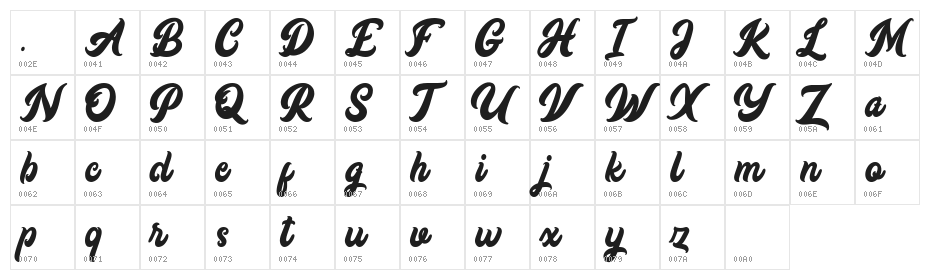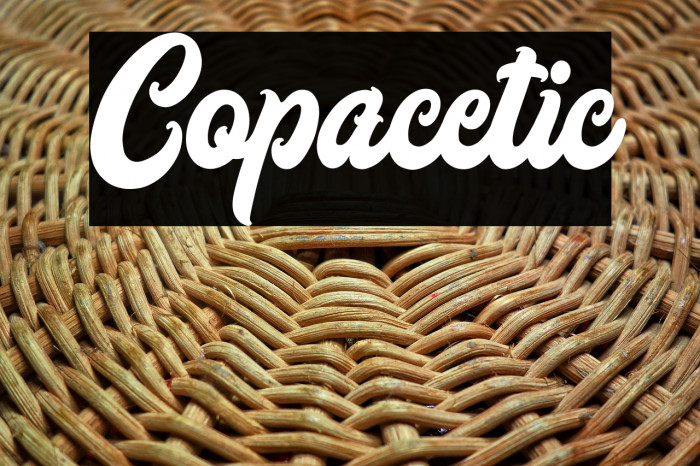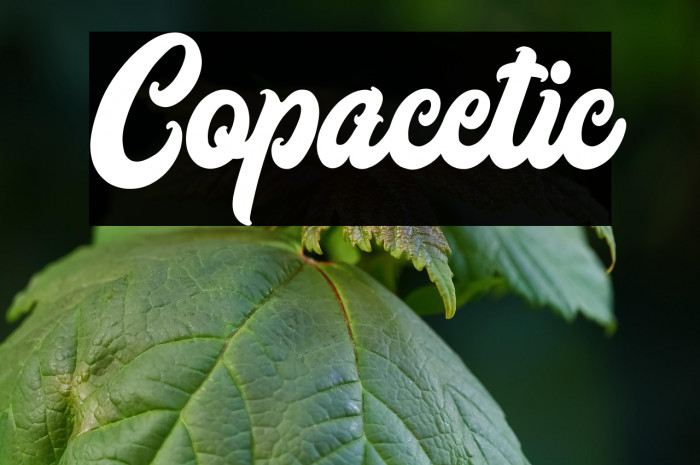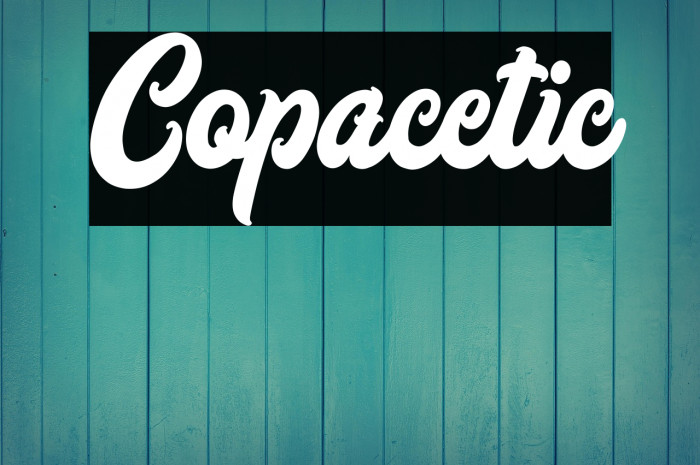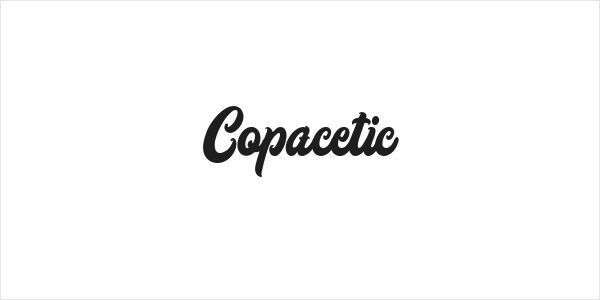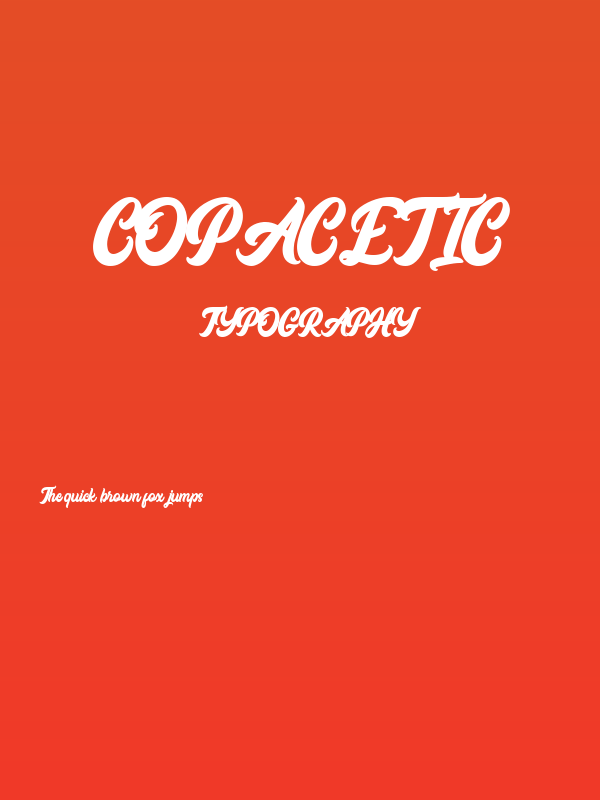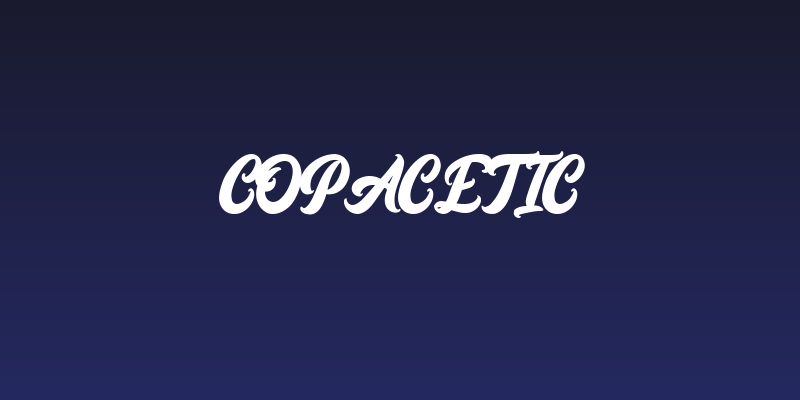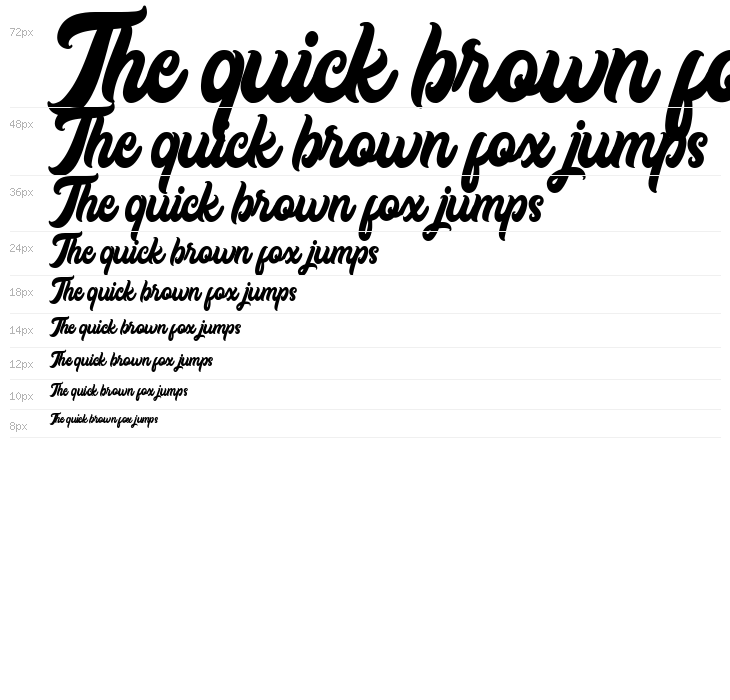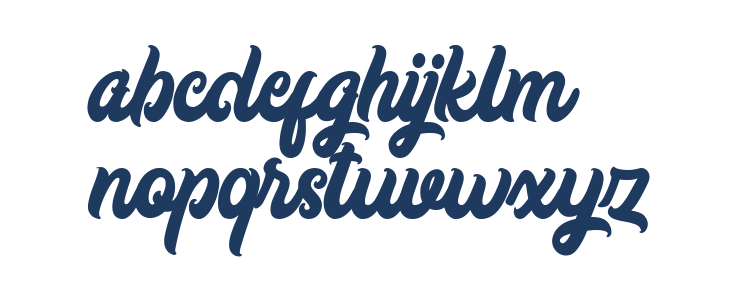
Copacetic Font
Copacetic Description
This font features a bold, cursive style with a strong emphasis on fluidity and elegance. The characters are interconnected, creating a seamless flow that is both dynamic and visually appealing. The uppercase letters are slightly larger and more pronounced, adding a touch of sophistication. The lowercase letters maintain a consistent height, ensuring readability while preserving the artistic flair. The numerals and special characters are designed to match the overall aesthetic, with smooth curves and a bold presence. This font is ideal for projects that require a touch of elegance and creativity, such as invitations, branding, and decorative text.
| Use Case | Logos, Headlines, Decorative text |
| Proposed Projects | Ideal for invitations, branding, decorative text, and creative projects. |